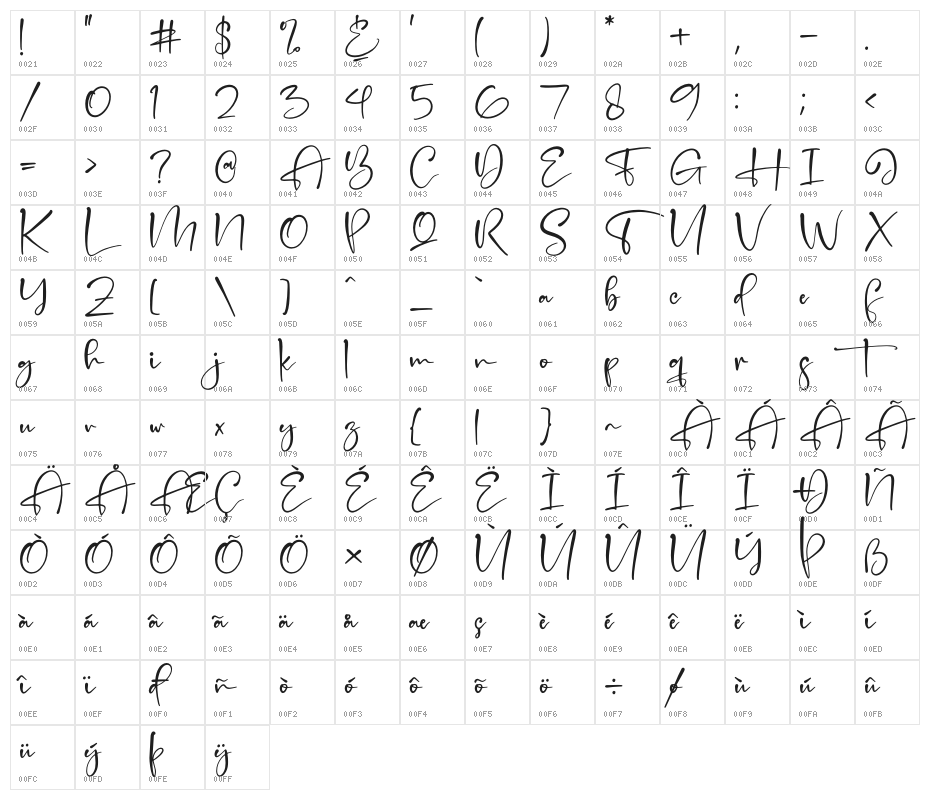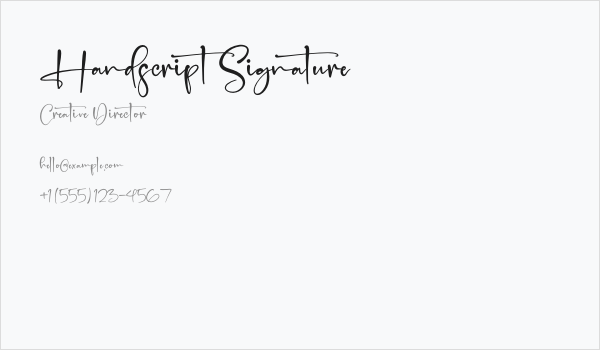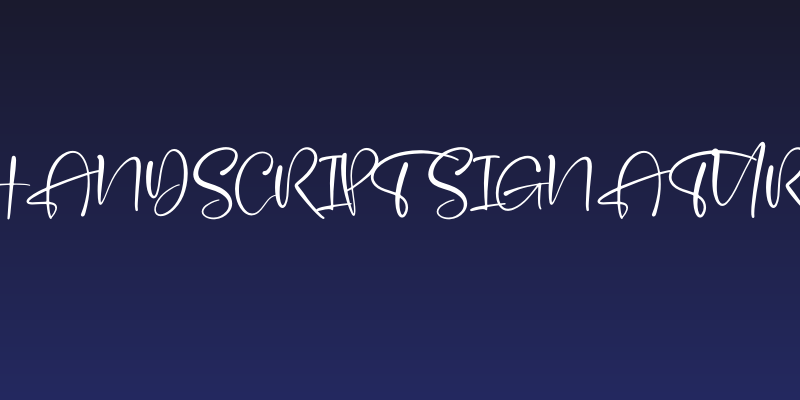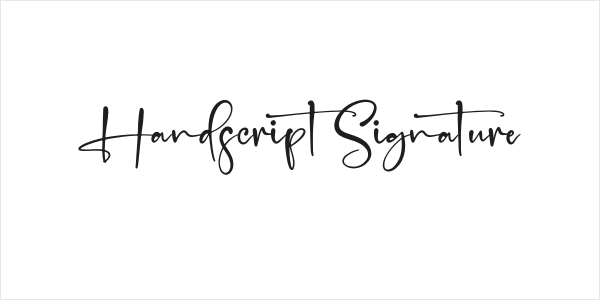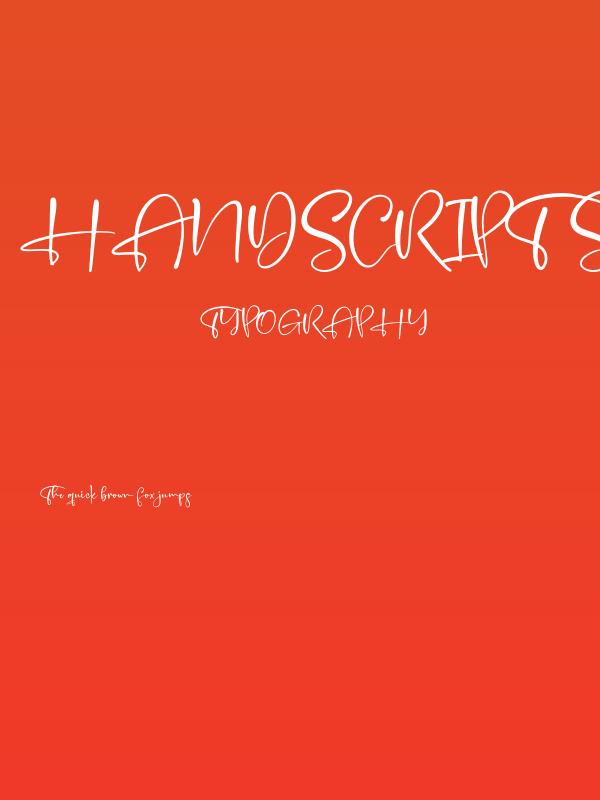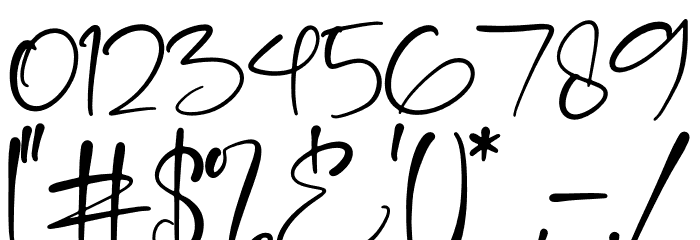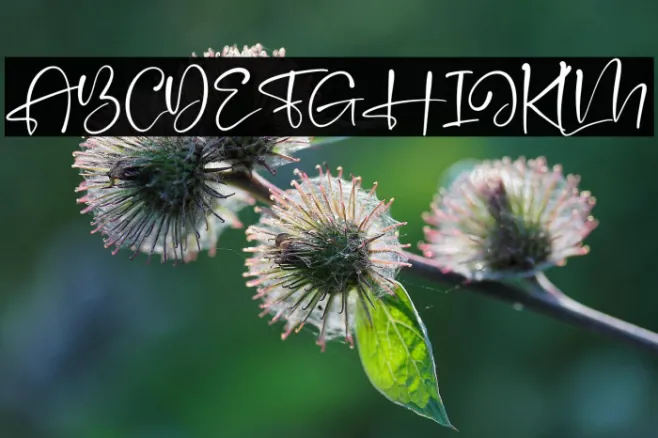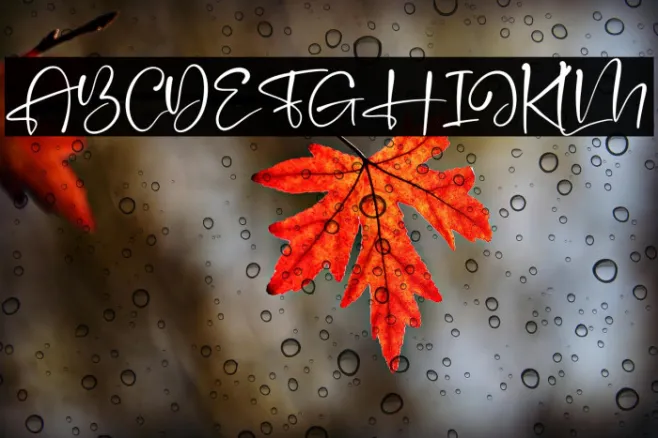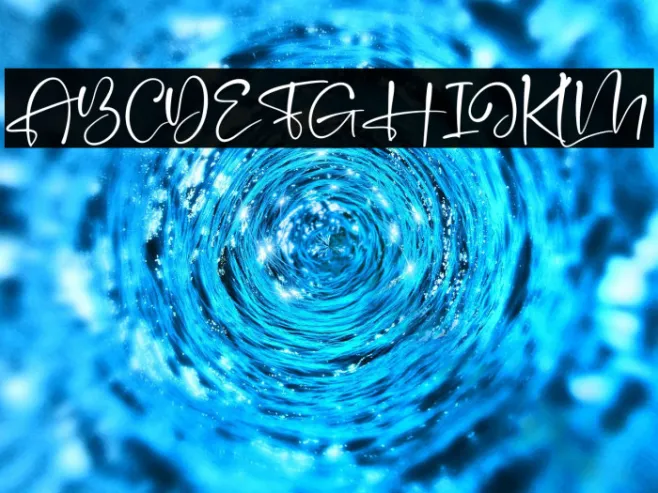
Handscript Signature Font
Handscript Signature Description
This font exudes a personal and artistic flair, reminiscent of a handwritten signature. The characters are fluid and connected, with a natural flow that mimics cursive handwriting. The uppercase letters are bold and expressive, while the lowercase letters maintain a consistent and elegant style. Numbers and special characters are crafted with the same attention to detail, ensuring a cohesive look across all elements. The overall appearance is both sophisticated and approachable, making it ideal for projects that require a personal touch.
| Proposed Projects | Ideal for wedding invitations, personal branding, greeting cards, and artistic projects that require a touch of elegance and personality. |